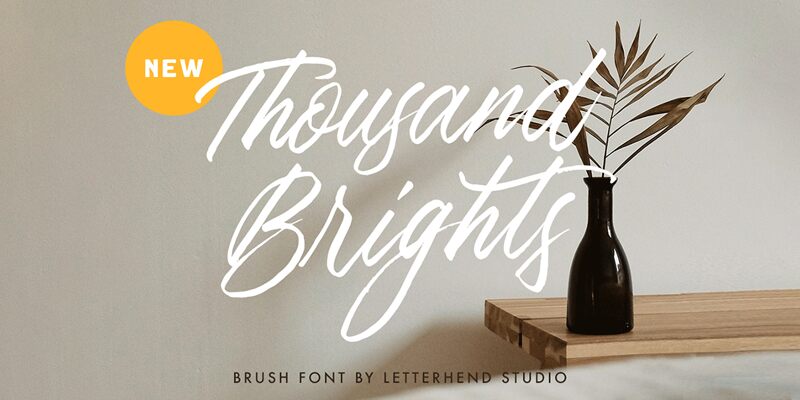
Thousand Brights, a creation by Letterhend Studio, exudes a personal touch with its handwritten style that adds warmth and authenticity to any text. Its elegant strokes and fluid continuity suggest sophistication, while the condensed nature of the font provides a space-efficient charm without sacrificing legibility.
This script-like typeface carries an air of intimacy, making it ideal for invitations, branding, and packaging where a handcrafted feel is desired. The font's aesthetic versatility ensures it fits seamlessly into designs that require both personality and finesse.